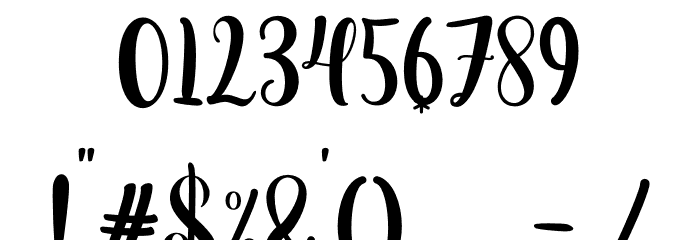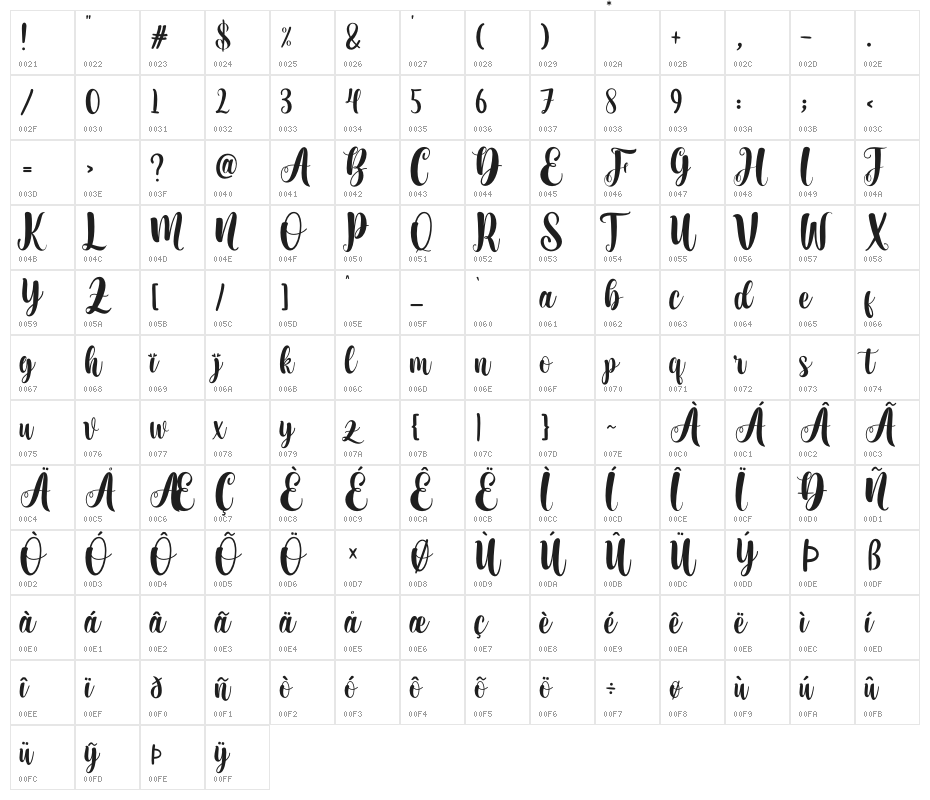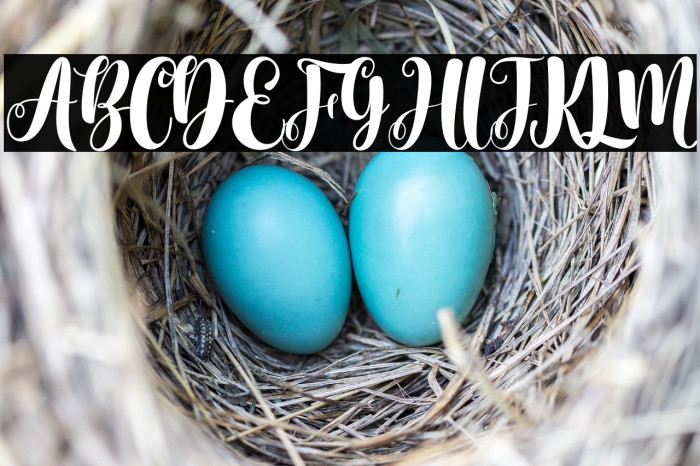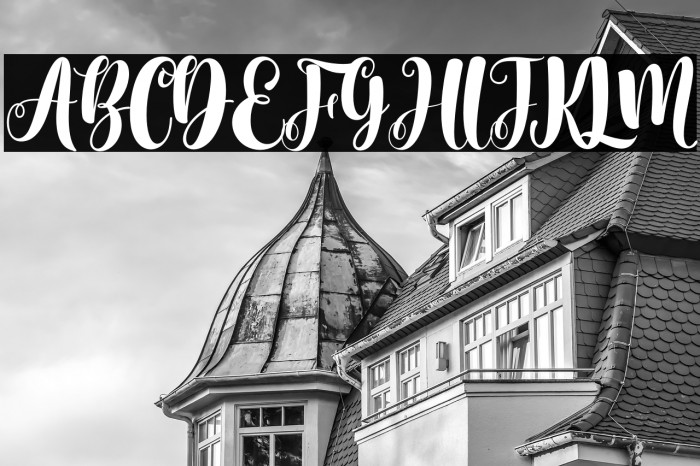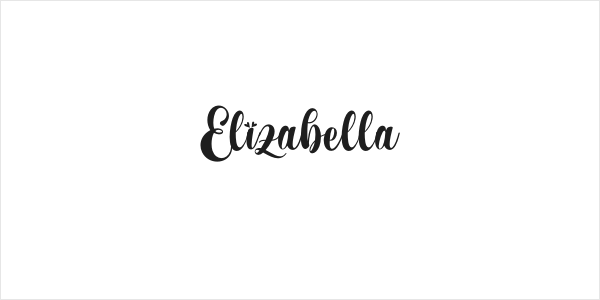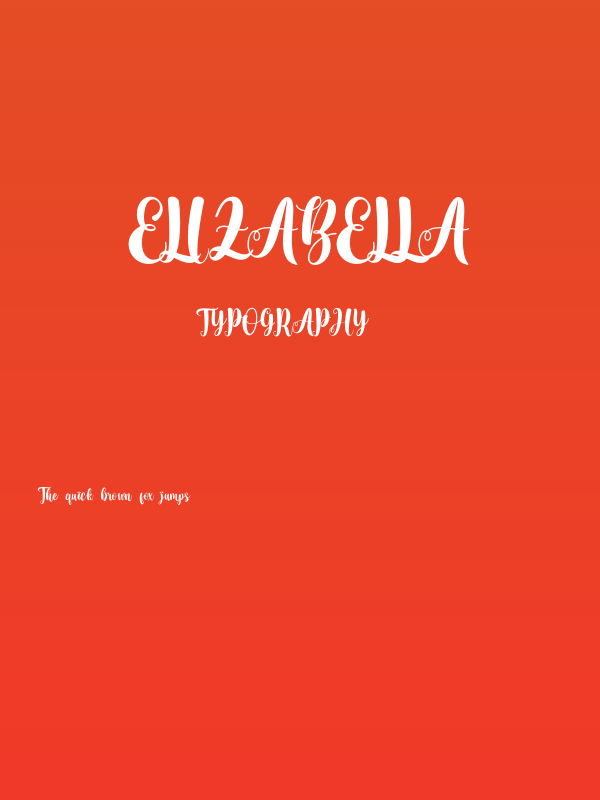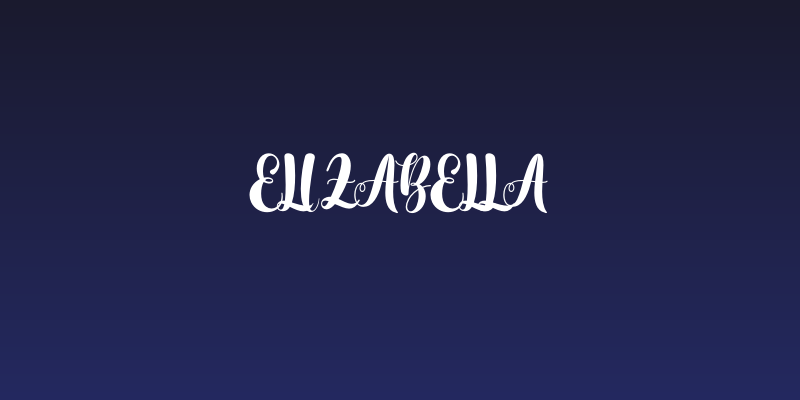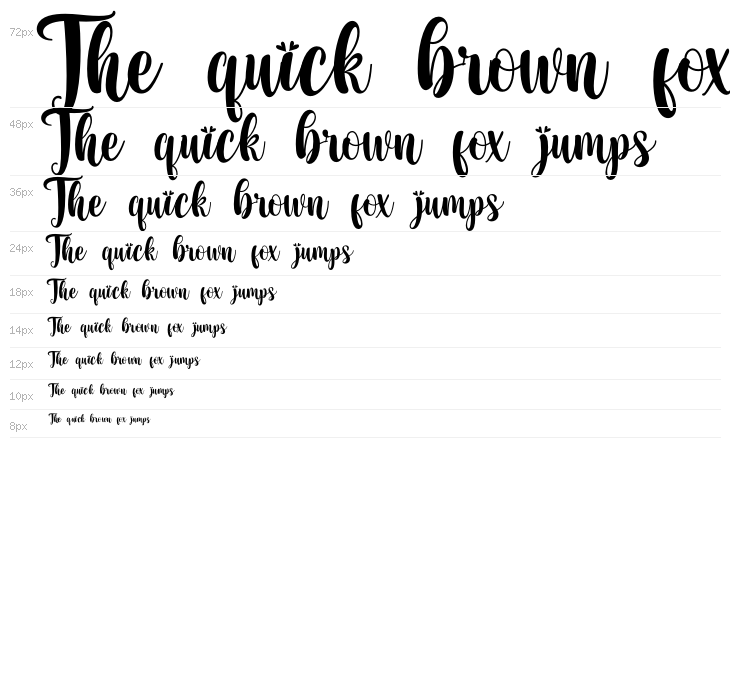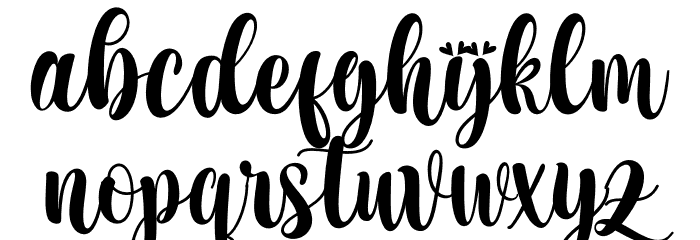
Elizabella Font
Elizabella Description
This font features a bold and expressive script style with elegant, flowing curves and flourishes. The uppercase letters are particularly ornate, with sweeping lines and decorative loops that give a sense of movement and grace. The lowercase letters maintain a consistent style, with smooth connections and a slightly playful character. The numerals are clear and bold, matching the overall aesthetic of the font. Special characters are included, each designed with the same attention to detail and decorative flair. This font is ideal for projects that require a touch of elegance and personality.